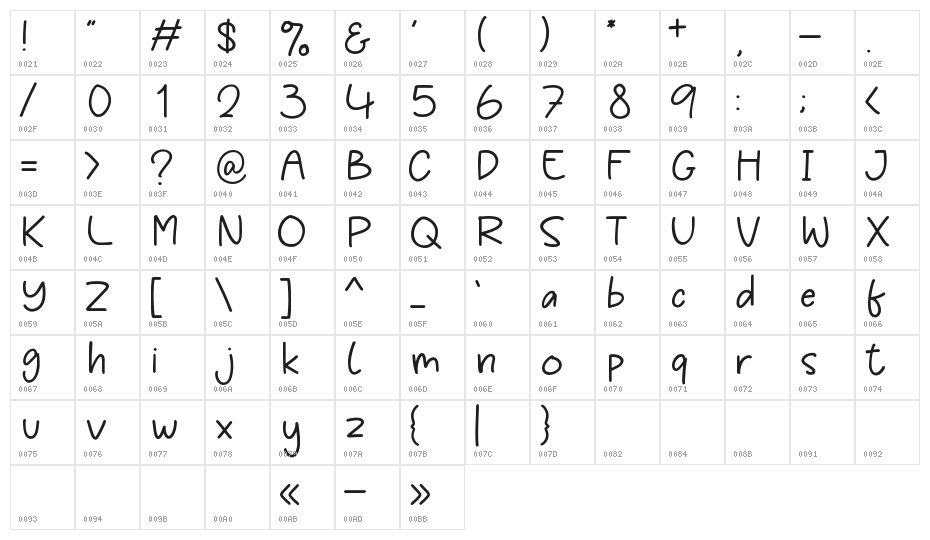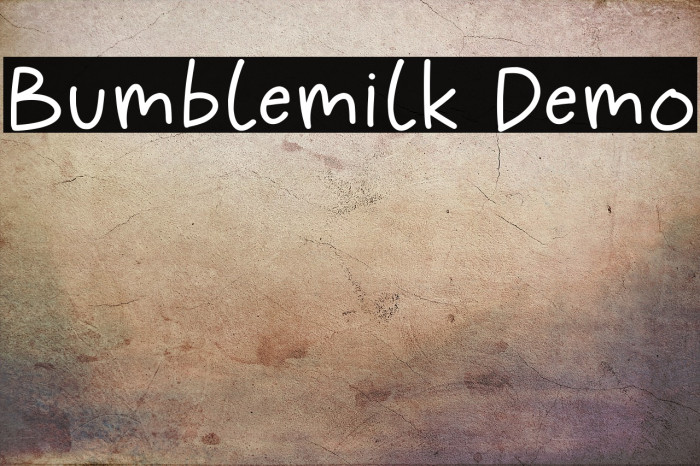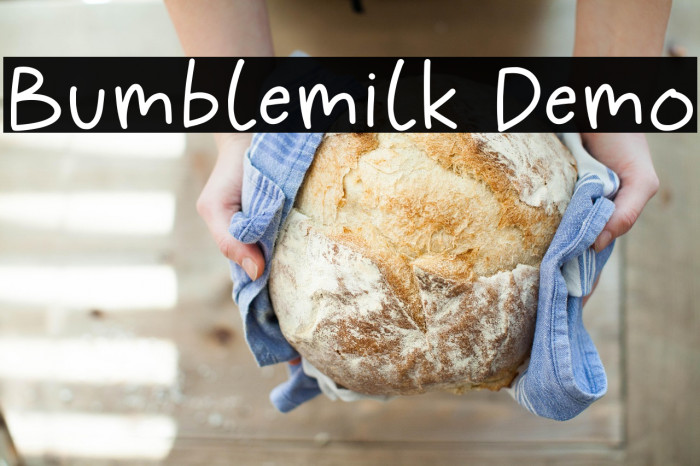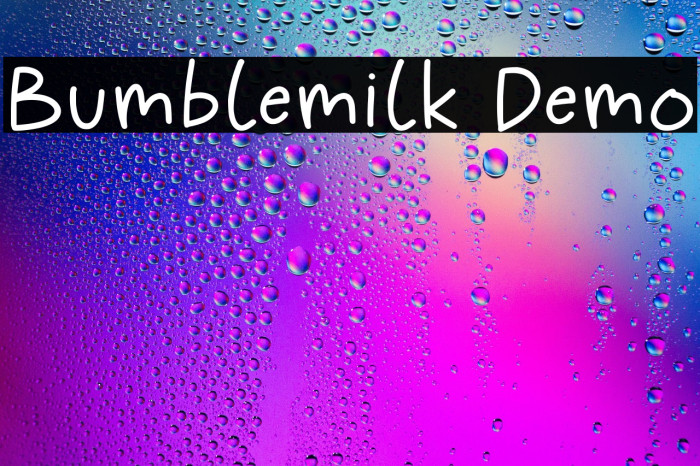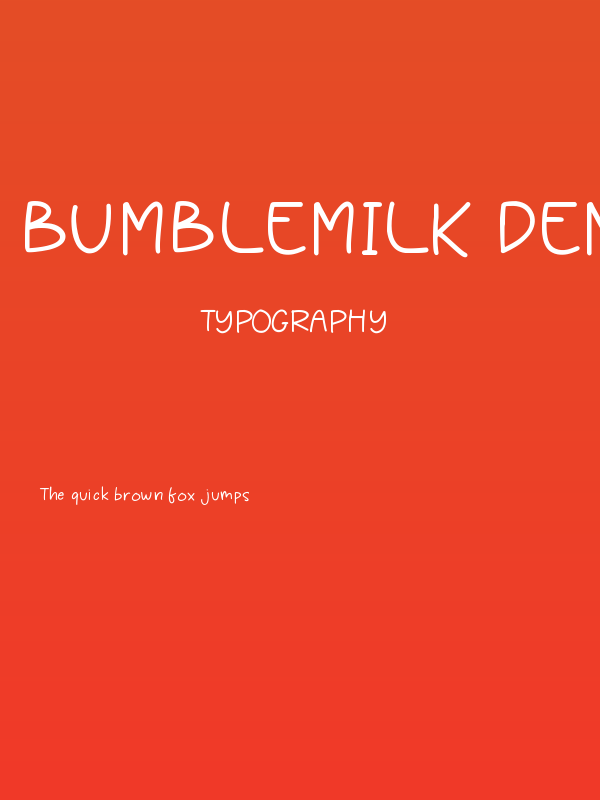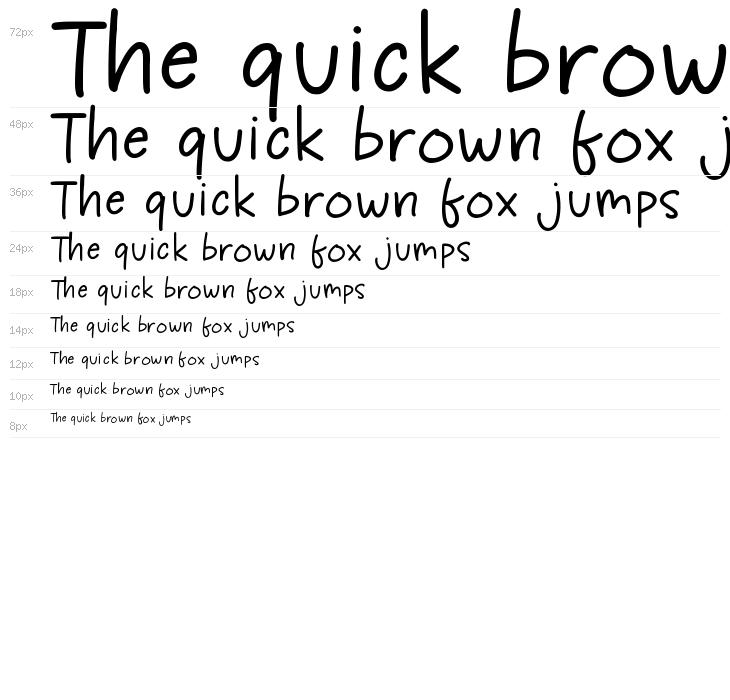
Bumblemilk Demo Font
Bumblemilk Demo Description
A playful, handwritten font with a casual and friendly appearance, featuring rounded edges and a consistent stroke width.
| Overall Style | Casual, Friendly |
| Use Case | Headlines, Informal text, Branding |
| Proposed Projects | Children's books, casual invitations, playful branding. |